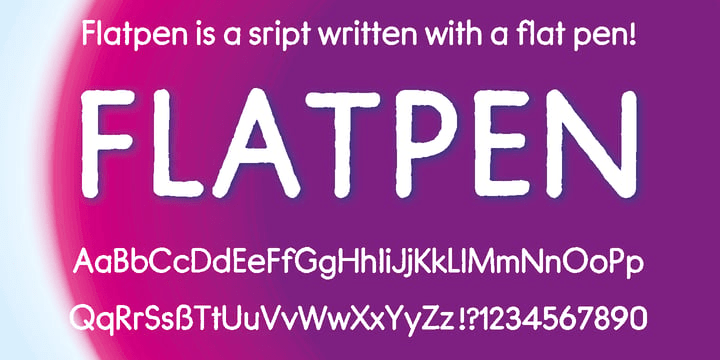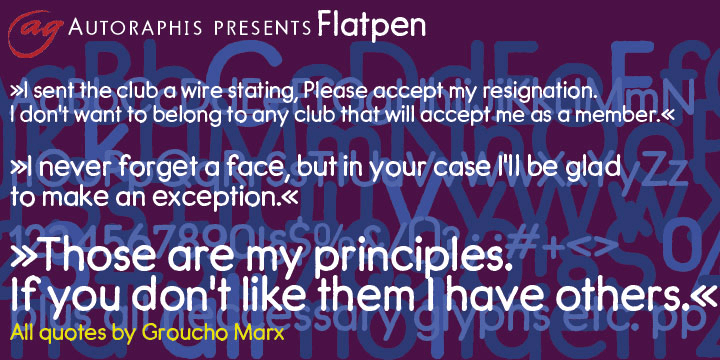
Flatpen
Font Family by Autographis
Flatpen is a font that was written with a pen we used to call "Redis-Pen". It had a flat, round tip that enabled you to write letters, with the same width of stroke.